20 Top Fonts for Web to Improve Your Site’s Look and UX
Great web design always starts with the best typography. Our curated top fonts for web ensure your message looks clean, modern, and easy to read, no matter the device or screen size.
Key takeaways:
- Using well-optimized web fonts helps improve page performance, accessibility, and overall design quality.
- Knowing the top fonts for web guides designers in choosing typefaces that align with branding while keeping the website clean and user-friendly.
- The most commonly recommended fonts for websites include Roboto, Lato, Montserrat, Poppins, and Nunito.
10 Must-Know Web Fonts for a Stronger Digital Identity
Typography is one of the most influential elements in modern web design, guiding emotions and readability across every screen. Using top fonts for web ensures your website feels polished, trustworthy, and user-friendly. Below is a curated list of recommended web fonts that balance style and performance perfectly.
1. Roboto
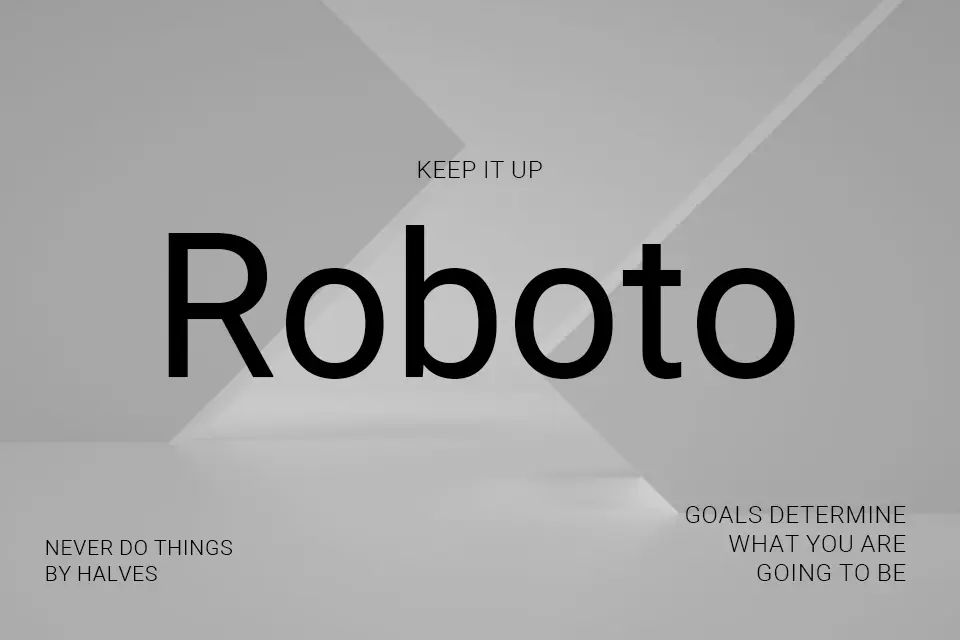
Roboto’s clean, geometric design makes it a dependable choice for modern interfaces. Its balanced curves and excellent readability help cement its role among the top fonts for web use today.
2. Lato
Lato feels friendly yet professional, combining semi-rounded details with a polished appearance. It suits corporate sites, portfolios, and blogs needing a versatile typeface that stays readable on any screen size.
3. Open Sans
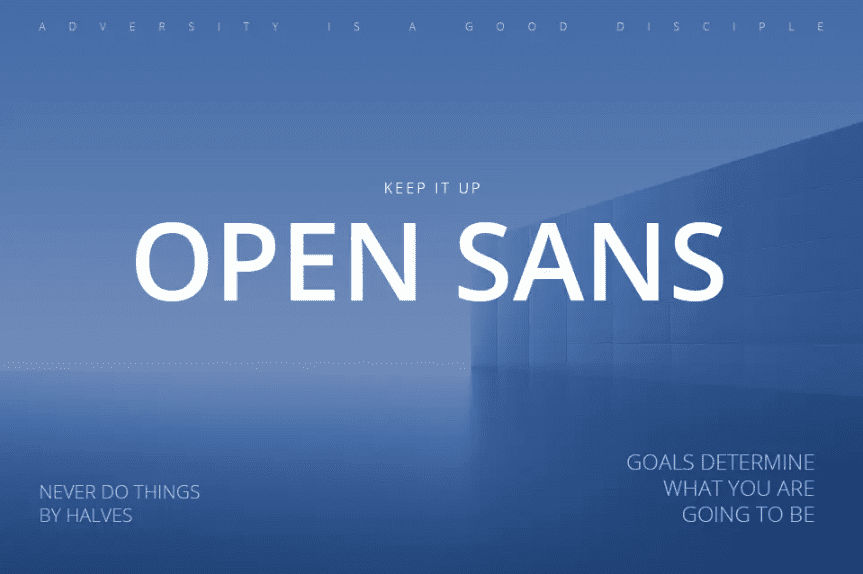
Open Sans offers neutral, open shapes that display beautifully across browsers. Its clarity makes it ideal for long paragraphs, navigation menus, and mobile-first layouts needing consistent readability.
4.Nunito / Nunito Sans
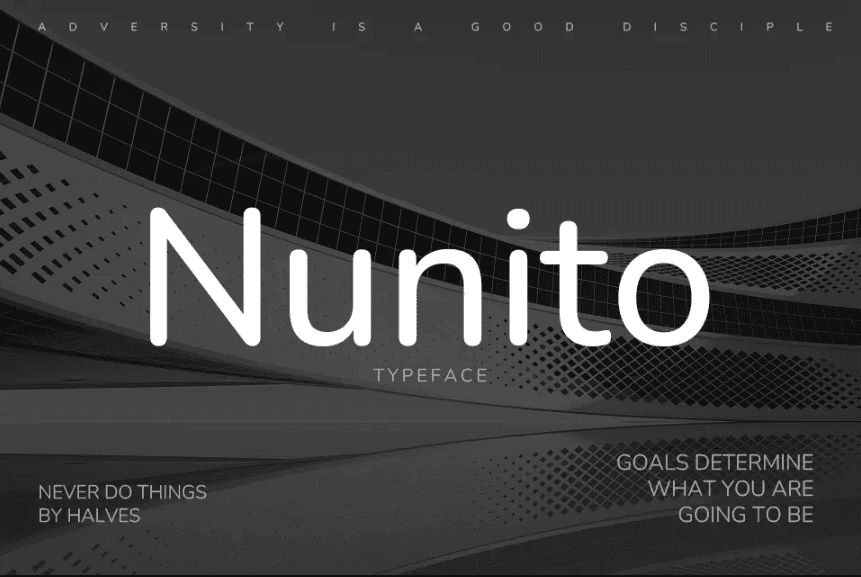
Nunito pairs rounded elegance with smooth legibility, giving interfaces a warm, approachable personality. It works great for brands wanting friendliness and simplicity without sacrificing professional structure.
5. Montserrat
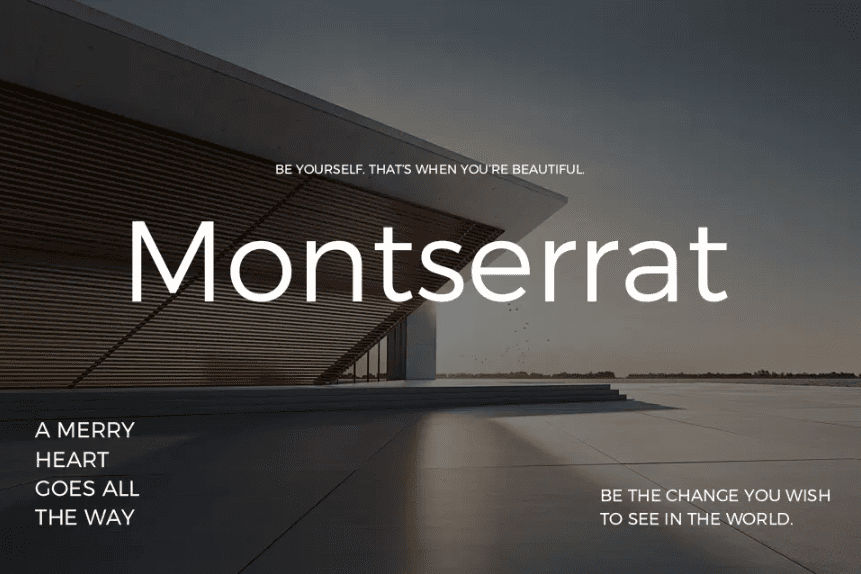
Montserrat brings a contemporary, urban flair inspired by classic signage. Its bold geometry strengthens headlines and hero sections, helping websites feel modern, confident, and visually distinct.
6. Poppins
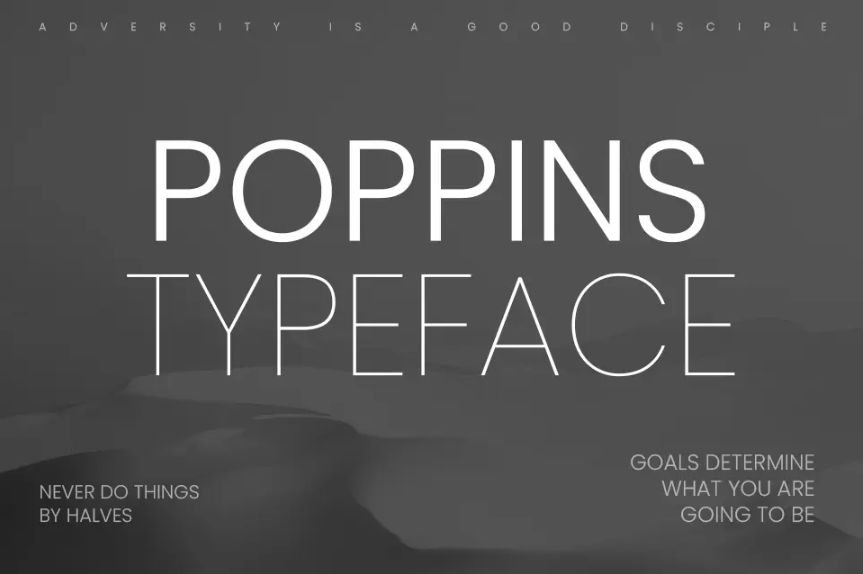
Poppins’ monolinear curves and geometric shapes create a clean, youthful aesthetic. It thrives in creative, tech-driven websites that need structure while maintaining a playful, fresh visual identity.
7. Raleway
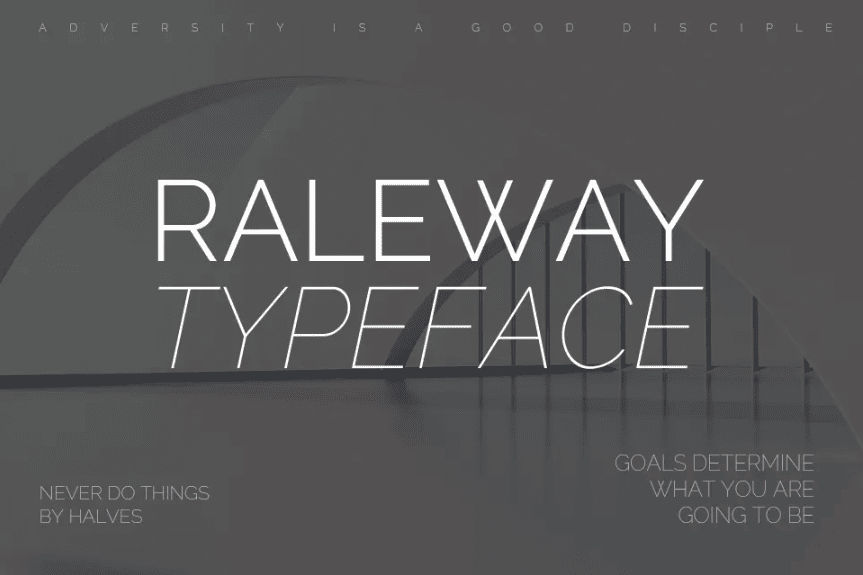
Raleway is elegant and minimalist, originally crafted for large headlines. Its thin lines and refined look elevate landing pages, portfolios, and brand-forward layouts seeking sophistication with subtle personality.
8. Oswald
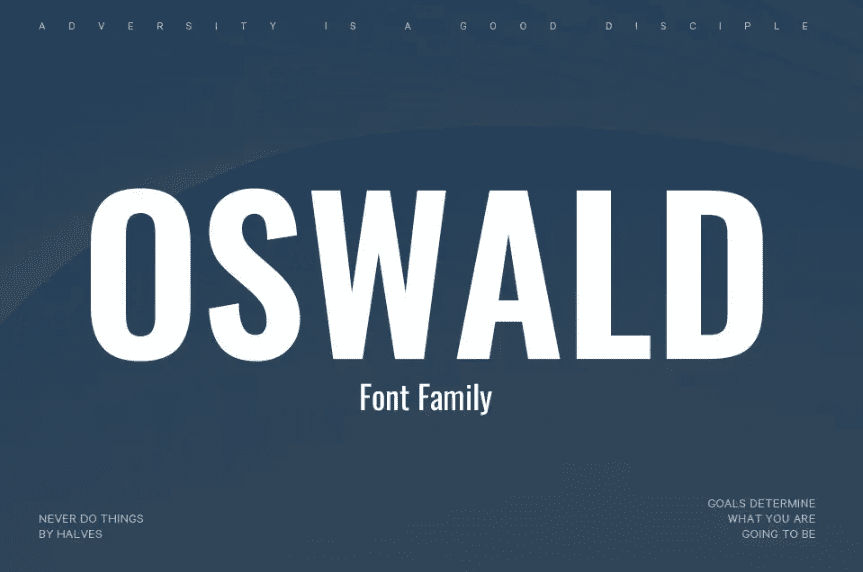
Oswald’s condensed structure delivers a strong visual impact, perfect for bold headlines and attention-grabbing UI elements. It adapts well to responsive layouts while preserving its authoritative, editorial style.
9. Playfair Display
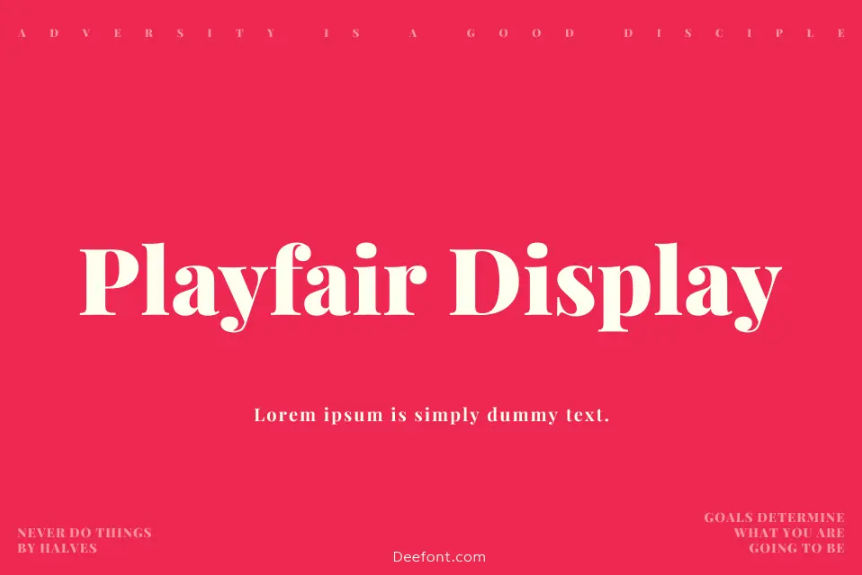
Playfair Display adds a luxurious, high-contrast serif feel ideal for fashion, lifestyle, or editorial websites. Its classic curves pair beautifully with modern sans serifs for balanced typography systems.
10. Lora
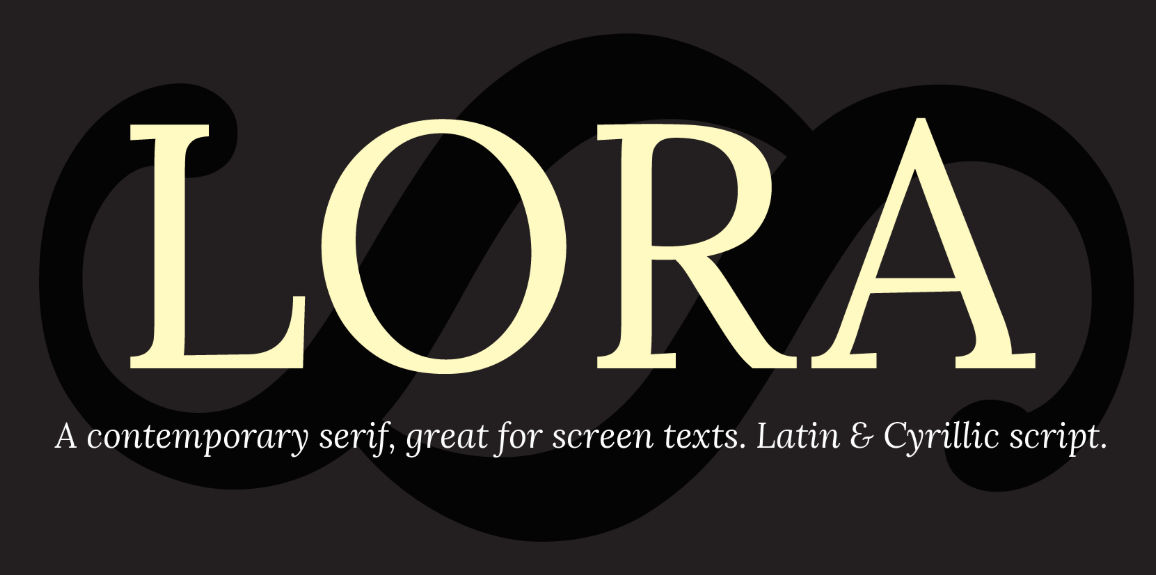
Lora blends contemporary serifs with smooth curves, offering warmth and literary charm. It excels in long-form content and storytelling sites, standing out as one of today’s top fonts for web readability.
1. Bakso Menu
Bakso Menu brings out a bold, retro look, offering a strong presence. This font is perfect to fill your hero section. Its puffy and rounded letterforms excel at standing out among other texts.
2. Evenings
Evenings put a spin on the regular serif fonts. This seemingly usual font uses clever display elements such as tall letters, extravagant forms, and elegant classic swirls.
3. Femina
If a lovely script font is your target, use Femina. As a script font, Femina opts for a more thicker strokes, guaranteeing a legible and stylized text on your websites.
4. Funky Vibes
Funky Vibes brings a retro-psychedelic, playful spirit with rounded and fun shapes. An excellent choice for creative sites, posters, or any web design needing bold character and nostalgic flair.
5. Beauty Story
Beauty Story works well if you aim for soft elegance or a chic aesthetic. This monoline script is fitting for beauty, lifestyle, or boutique-style websites.
6. Stereo Mont
Stero Mont blends vintage with psychedelic visuals. This retro serif font demands all the attention, allowing your website to spark the expressive side in style.
Crafting Better Designs with the Top Fonts for Web
Intentional typography helps your design communicate more effectively. When you choose fonts that support your visual tone and enhance clarity, you build a stronger connection with users and create pages that are both beautiful and effortless to explore.